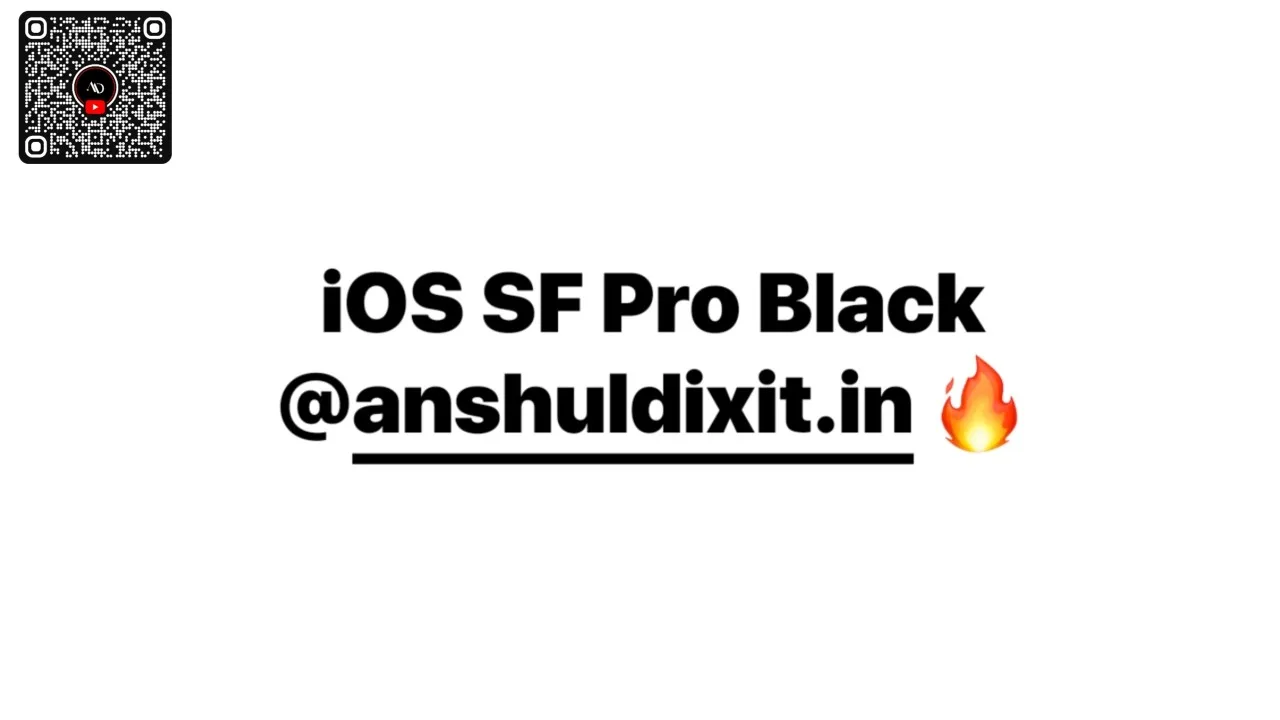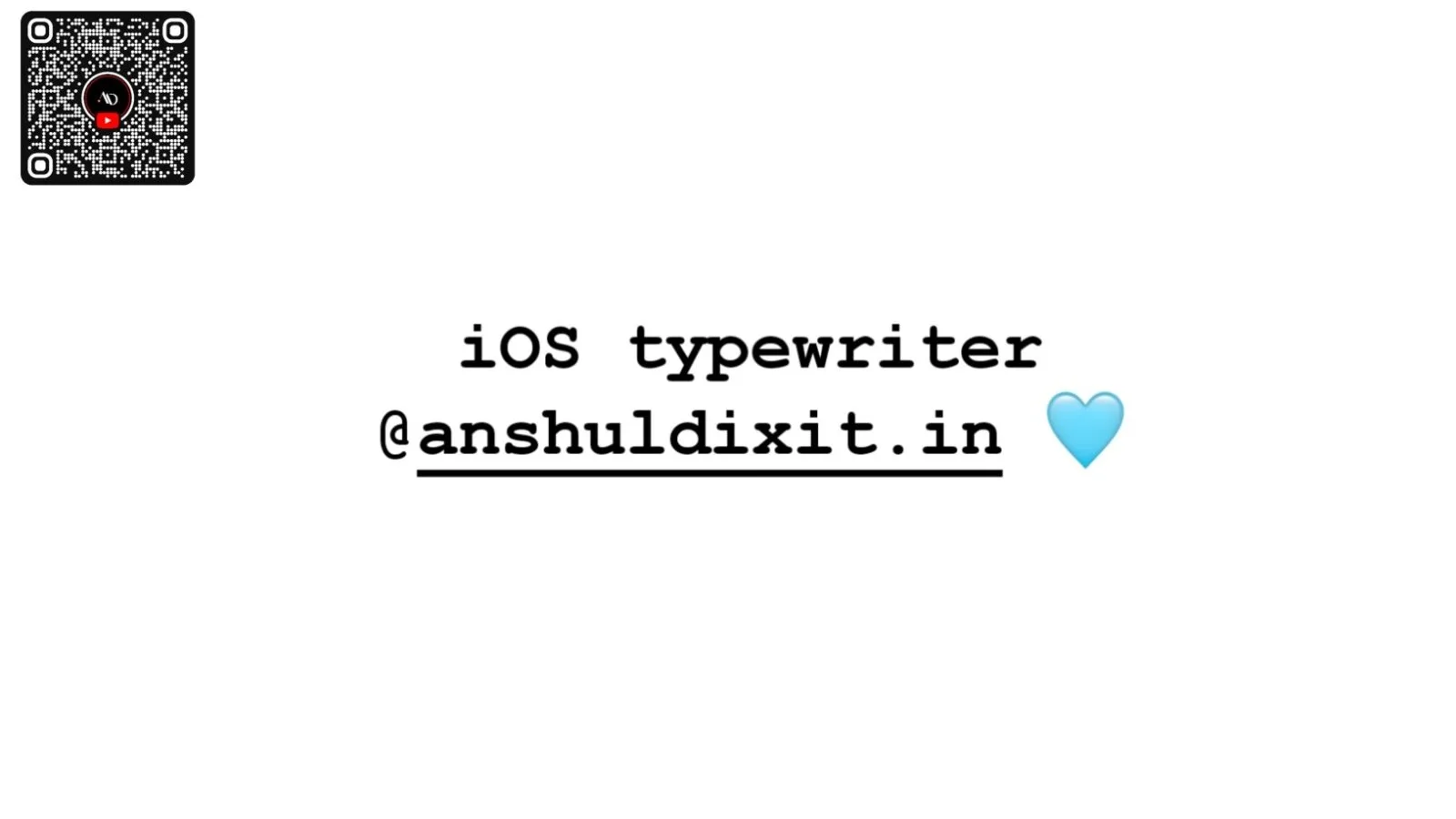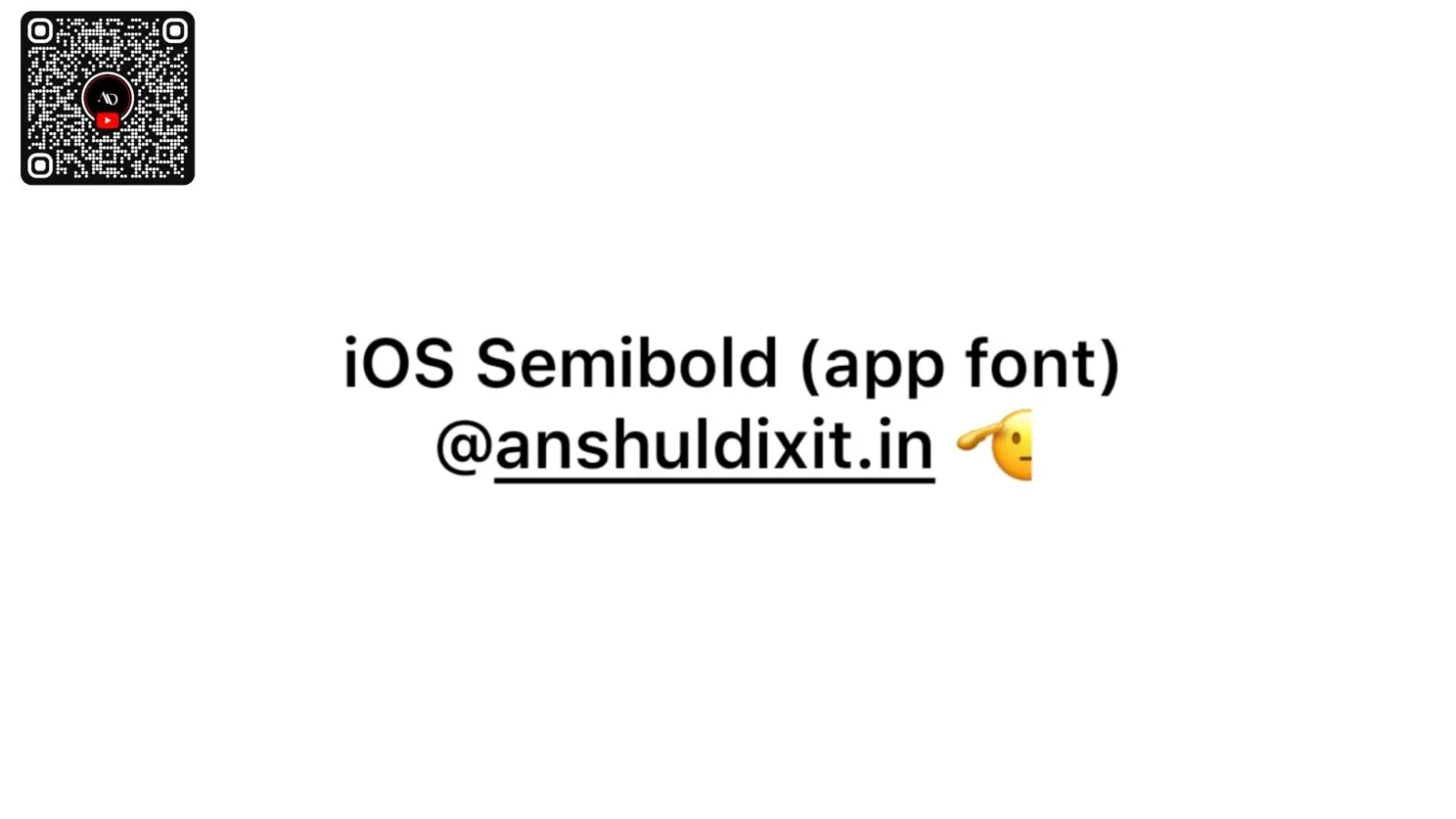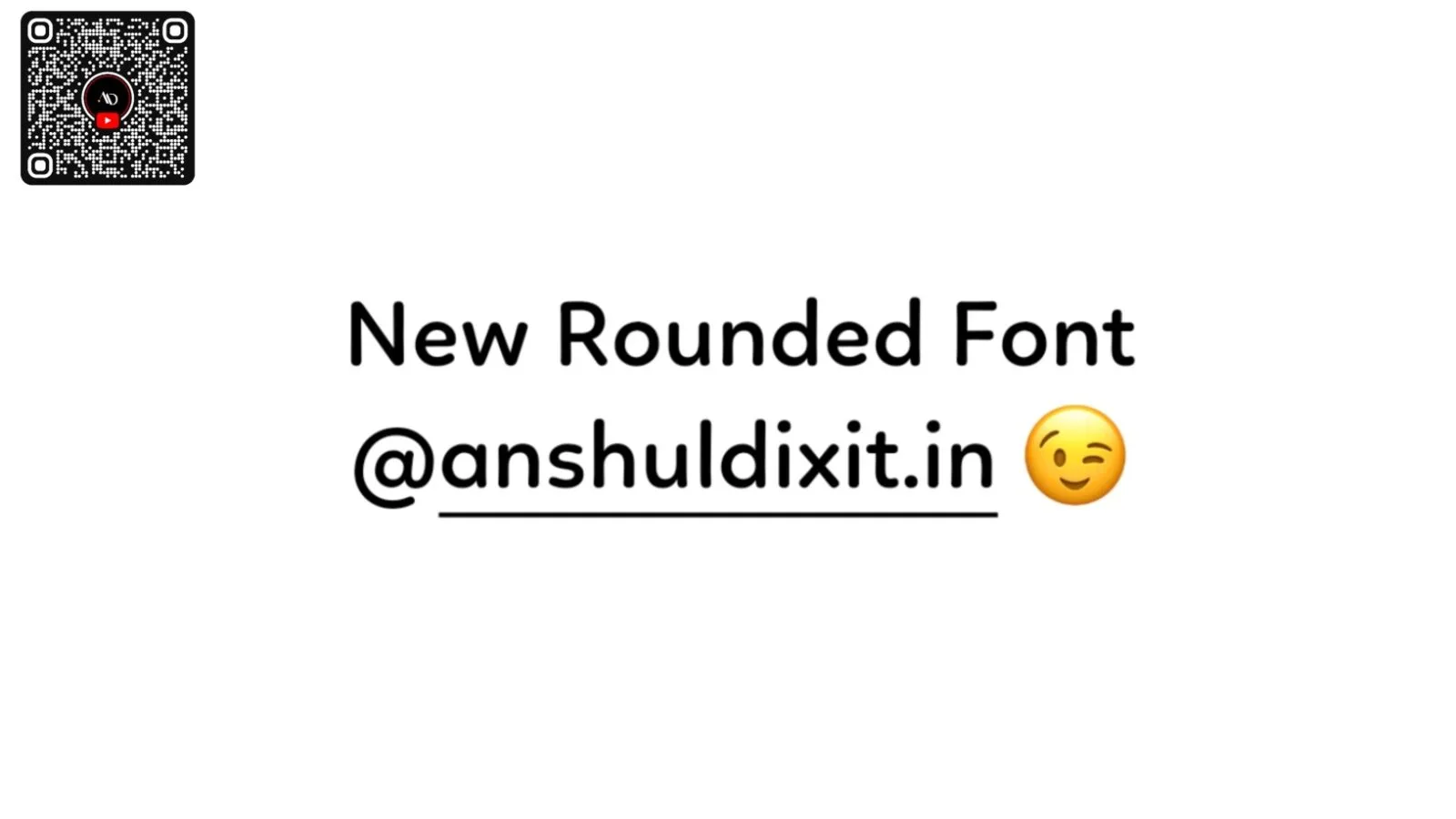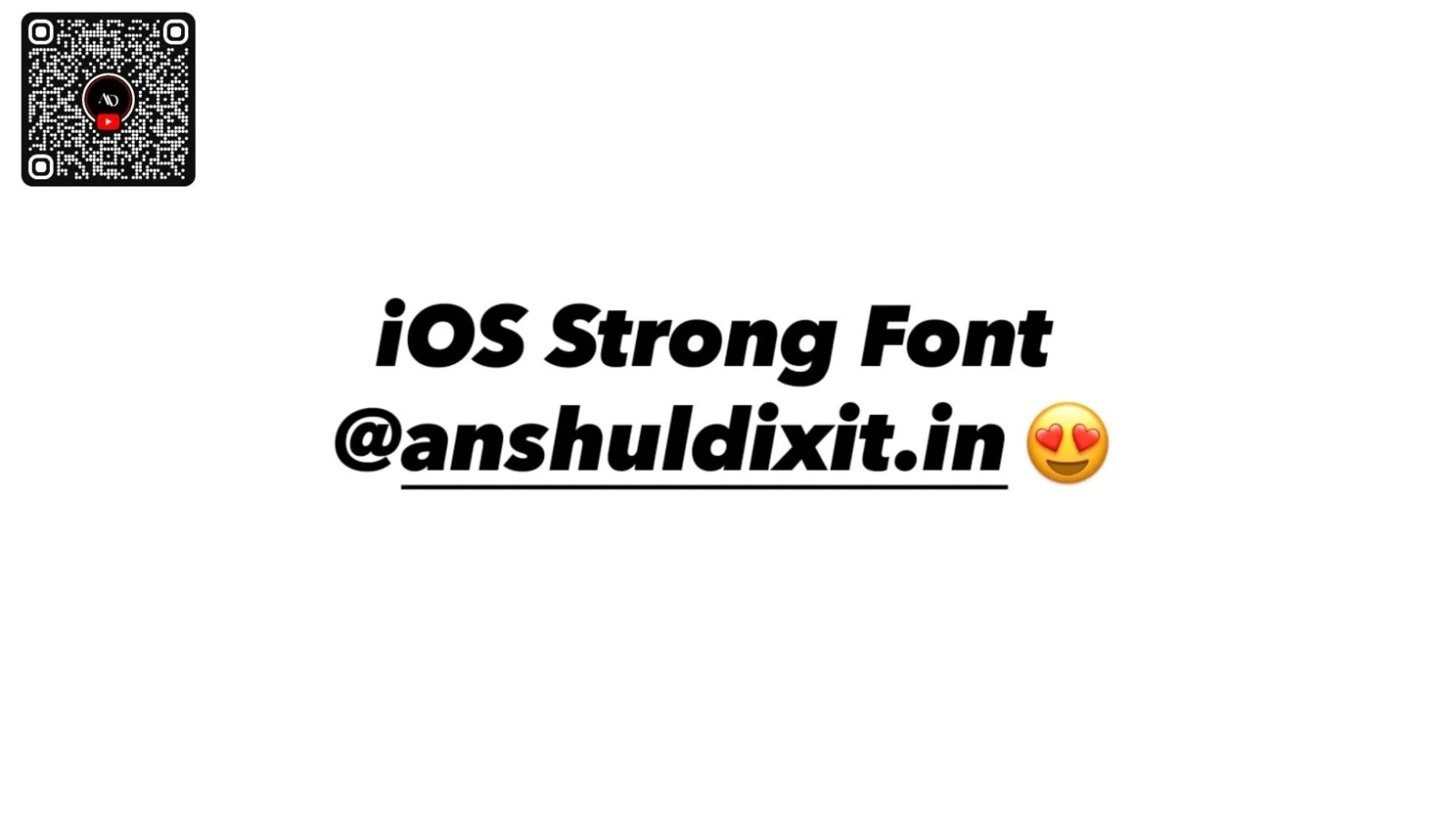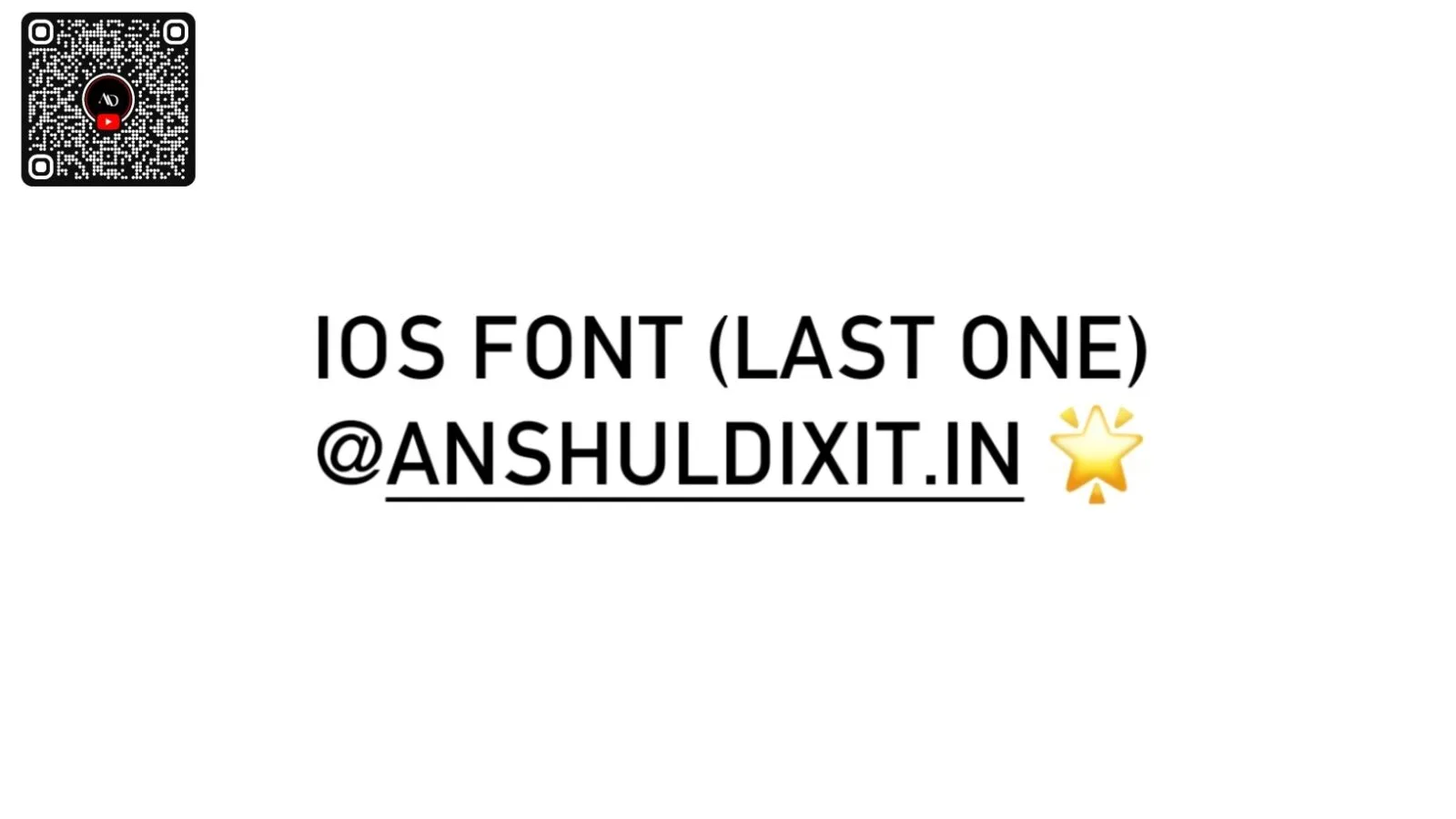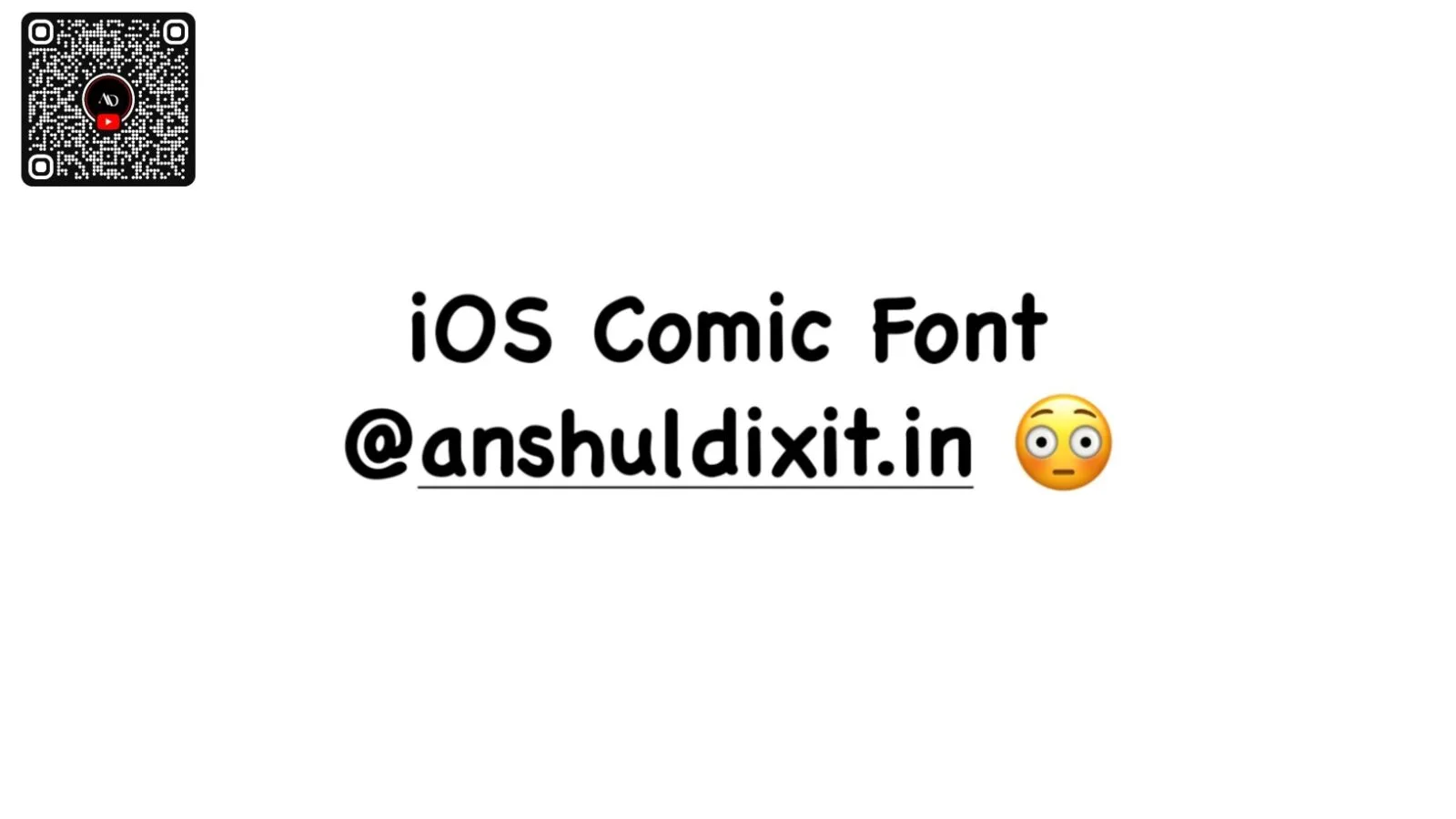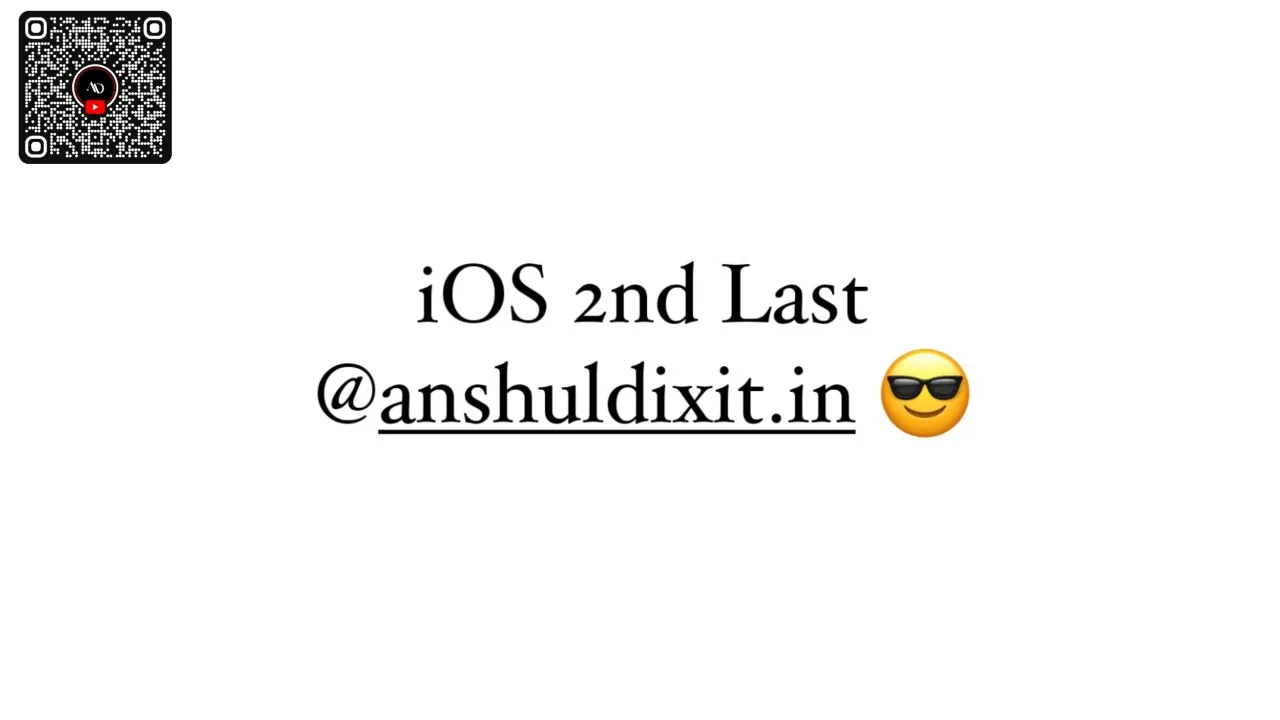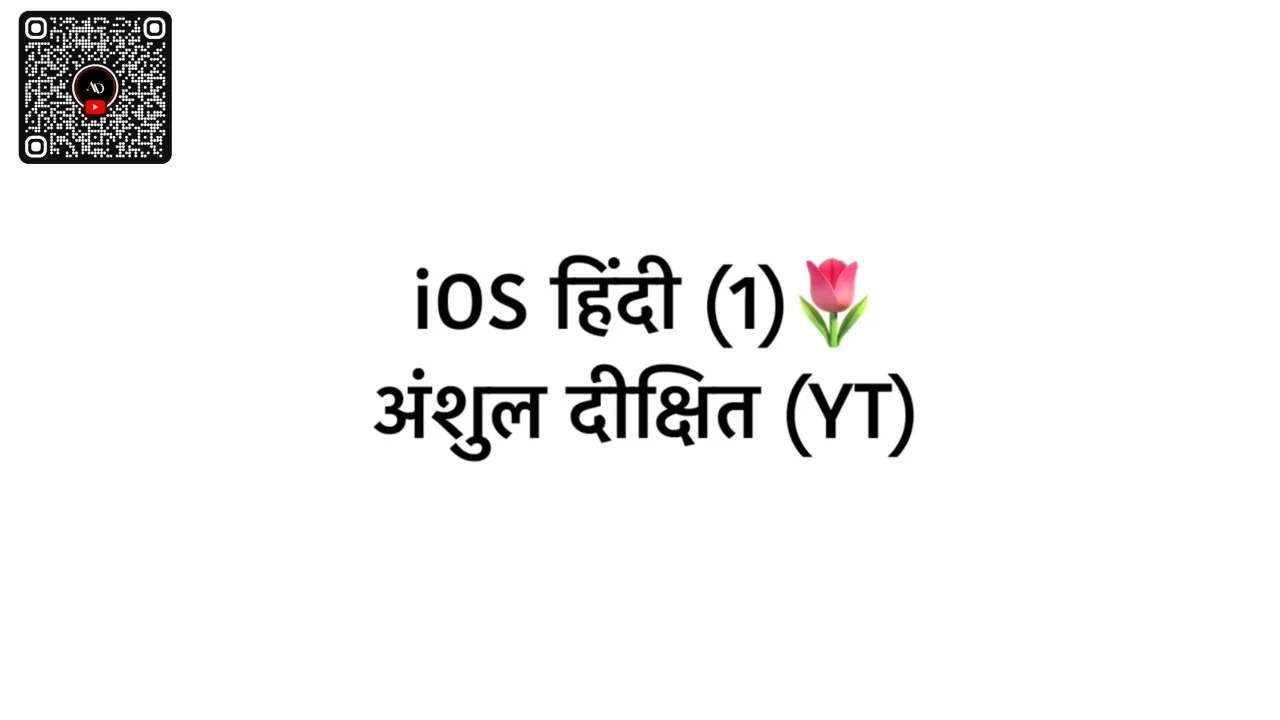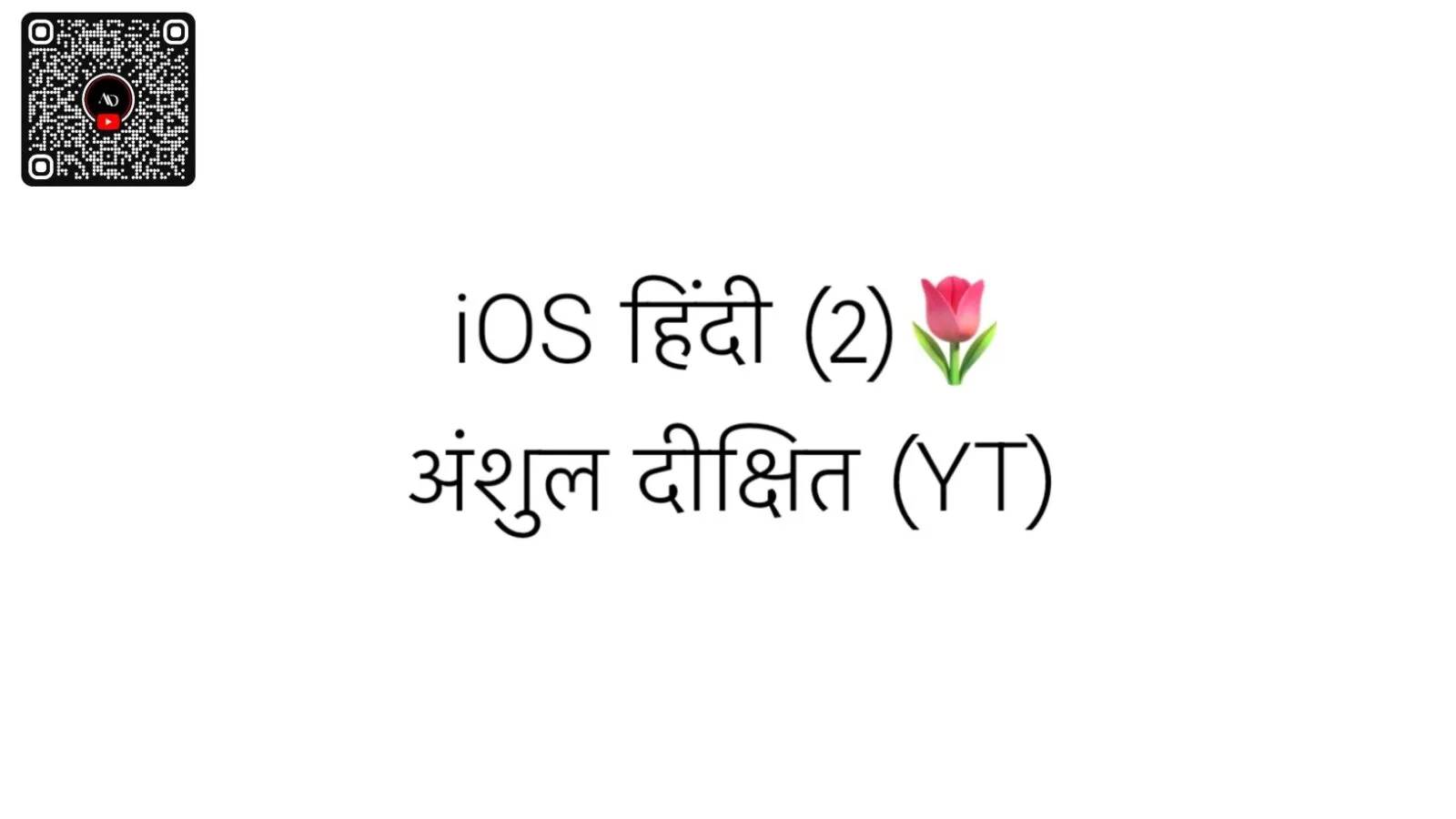
Why Use iOS Fonts on Instagram?
Instagram is all about creativity and making your posts stand out. Using unique fonts can really elevate your content and help express your style. While iOS users have a lot of font options, Android users often feel stuck with the same few choices. But don’t worry! You can easily access iOS fonts on your Android device to give your posts a fresh, stylish look.
iOS Instagram Fonts Preview
Understanding Font Differences
Knowing how iOS and Android fonts differ can help you make better choices for your posts:
- Style:
- San Francisco (iOS) is sleek and modern, making it perfect for a polished look. On the other hand, Roboto (Android) has a more geometric feel. Choosing the right font can really set the tone for your content.
- Variants:
- Both fonts have different styles (like regular, bold, and italic), but they might look slightly different. This can impact how readable your text is, especially on smaller screens.
- Adaptability:
- San Francisco is designed for iOS devices, ensuring it looks great on Apple screens. Roboto is tailored for Android, making it work well on those devices.
- Customization:
- Developers can pick different fonts for their apps, allowing for unique branding. This means that while both platforms have default fonts, you can explore other options to find what suits your style best.
Tips for Using iOS Fonts on Instagram
- Mix It Up: Don’t hesitate to combine different fonts! Use one font for your main text and another for quotes or highlights.
- Keep It Consistent: While it’s fun to try out different fonts, try to keep a consistent style across your posts to strengthen your brand.
- Prioritize Readability: Always think about how easy your text is to read. Some fancy fonts might look great but can be tricky to read on a small screen.
- Experiment and Have Fun: Instagram stories are the perfect place to play around with different fonts. Try out different combinations and see what your followers love!